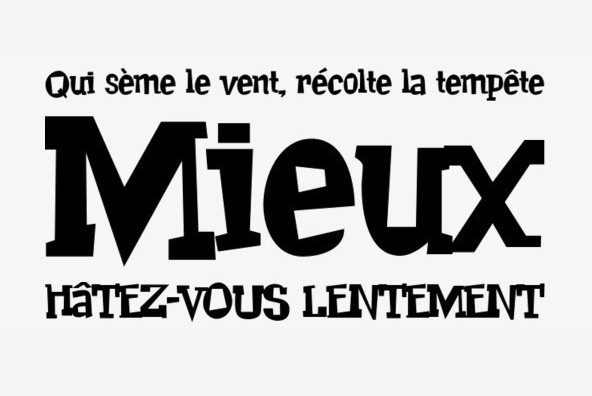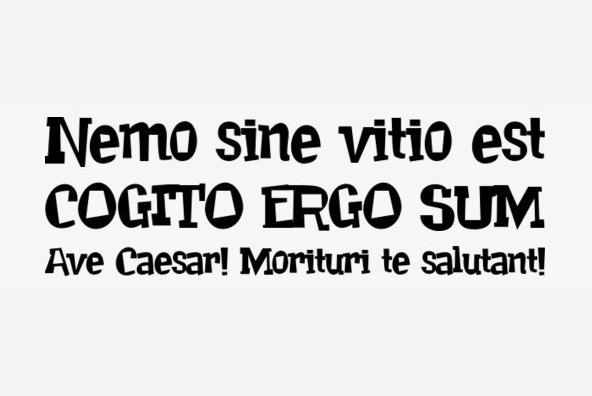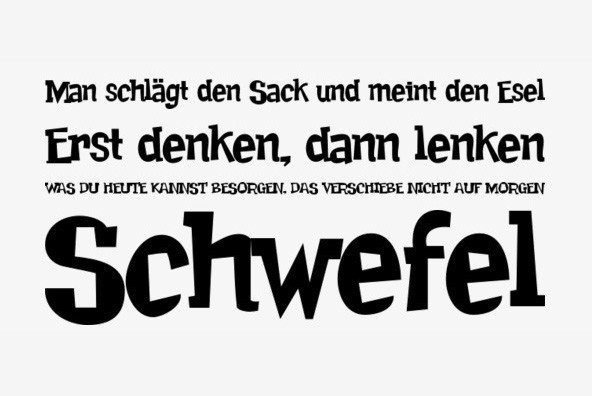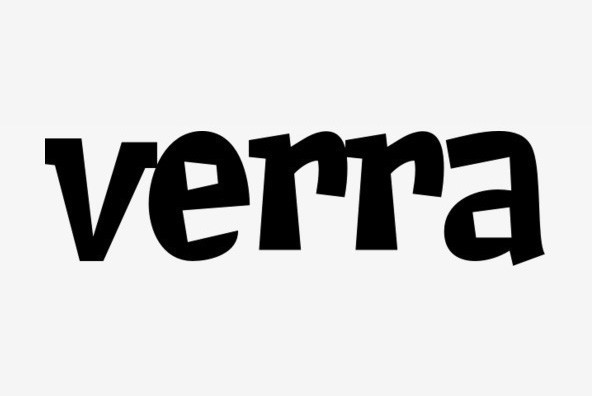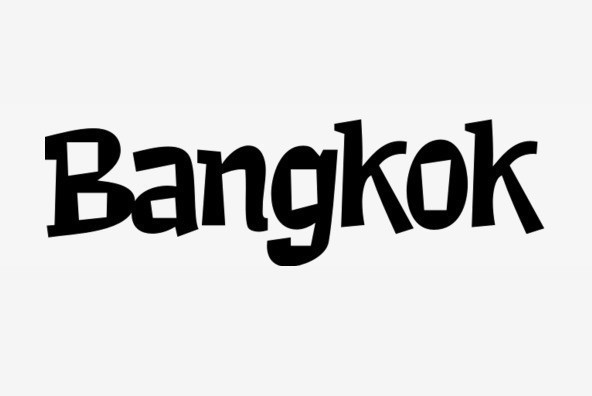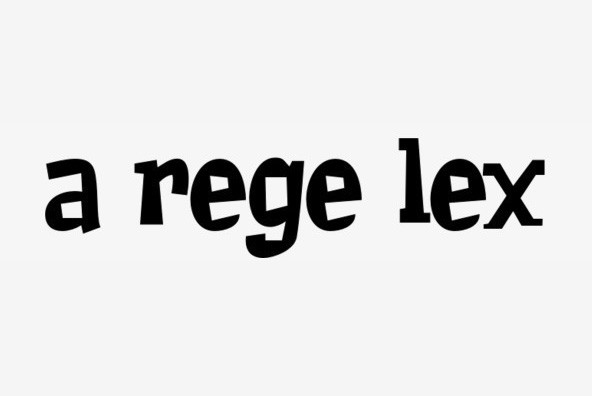
Goofball Alternate
Goofball is yet another wacky decorative typeface from Squid and Sideshow. As with most of his art and font design, Goofball is derived from Squid’s cluttered childhood recollections of greeting card and advertising lettering. Somehow it got all mushed together in his noggin and out came Goofball! Goofball and Goofball Alternate each contain their own totally unique lowercase characters and can be intermixed to create a unique look! Buy both as part of the Goofball Family and save a buck 'er two!